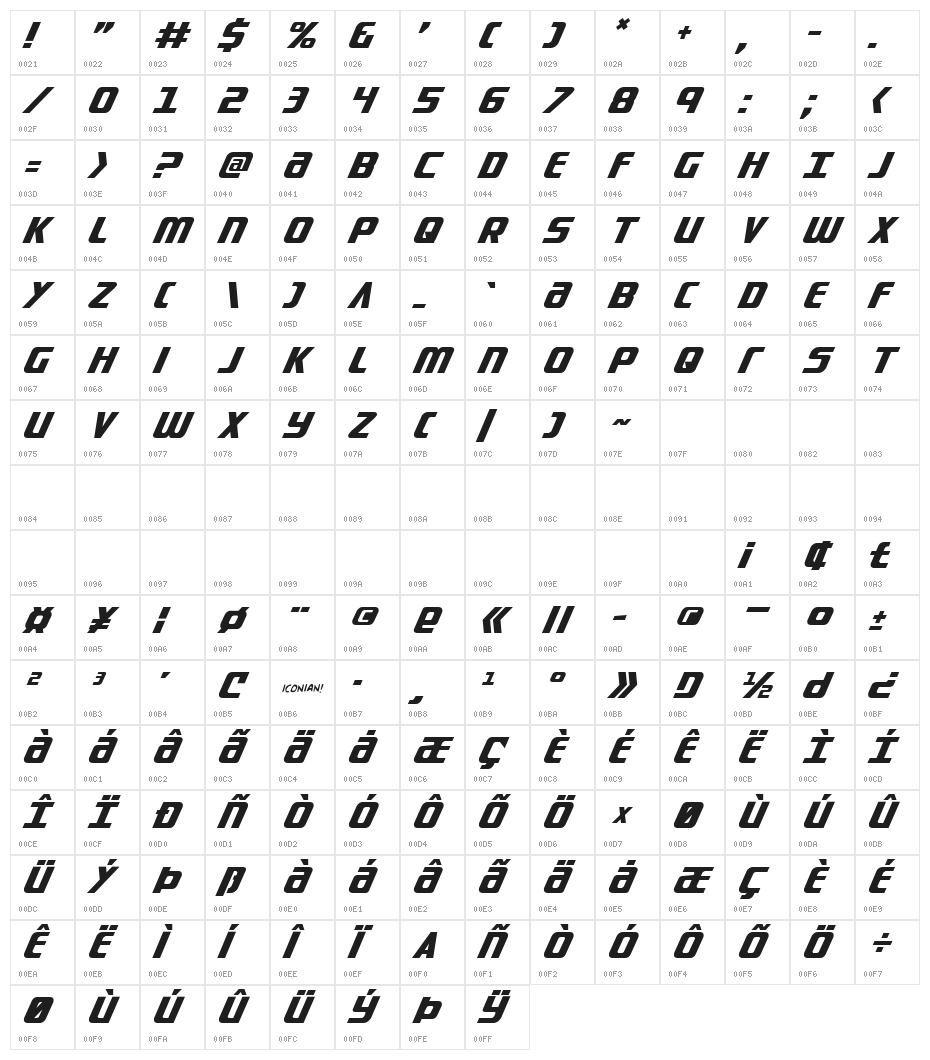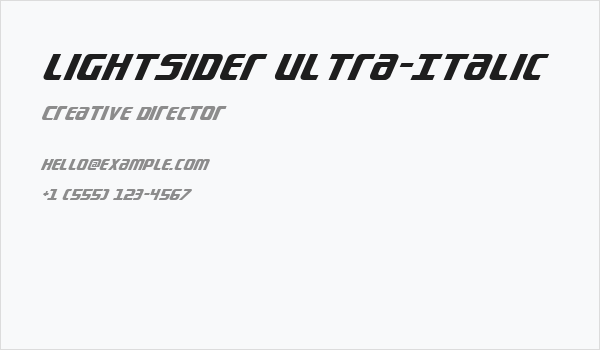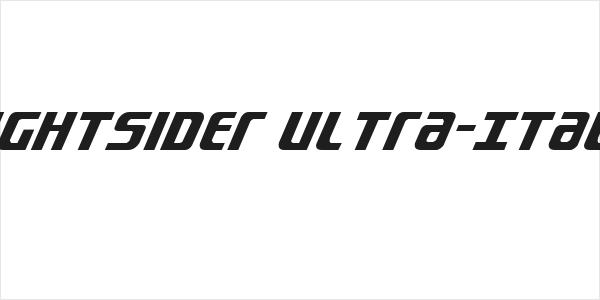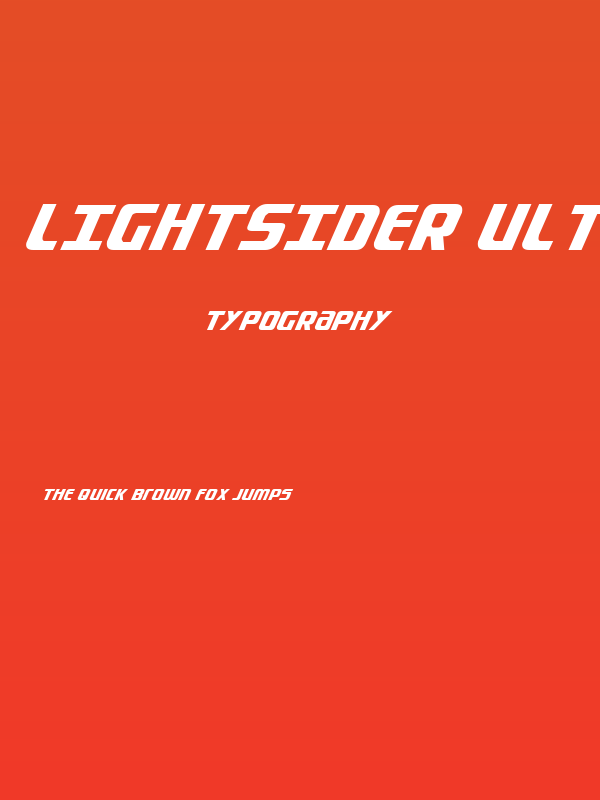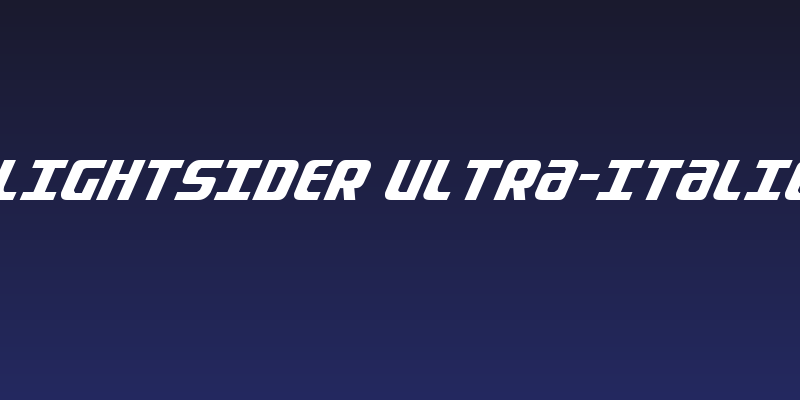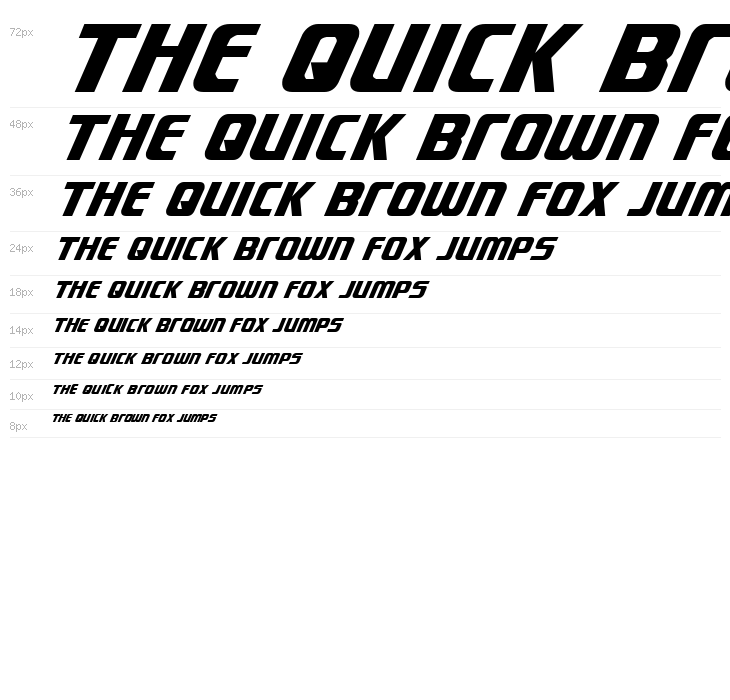
Lightsider Ultra-Italic Font
Lightsider Ultra-Italic Description
This font features a dynamic and modern design with a strong italic slant, giving it a sense of motion and speed. The characters are bold and slightly condensed, with a futuristic aesthetic that is both sleek and assertive. The uppercase and lowercase letters maintain a consistent style, with sharp angles and clean lines that enhance readability. The numerals and special characters are designed to match the overall style, ensuring a cohesive look across all text elements. This font's unique style makes it ideal for projects that require a contemporary and energetic feel.
Use CaseLogos, Headlines, Branding
Proposed ProjectsIdeal for branding, sports team logos, automotive designs, and tech-related projects.